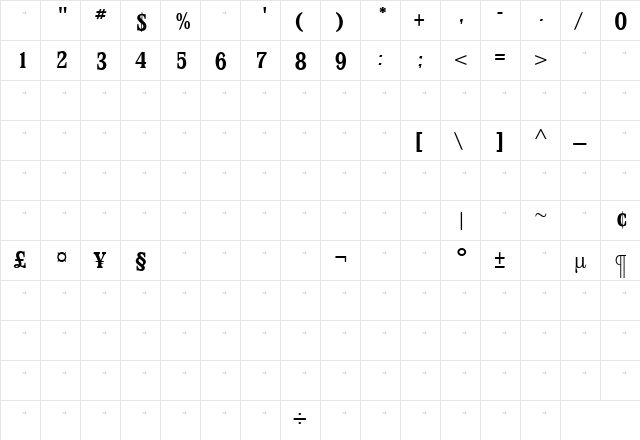
StirlingBoldTab Roman
Design Context for StirlingBoldTab Typeface
StirlingBoldTab takes a measured approach to typography — its balanced proportions and neutral character make it a reliable workhorse for both digital and print work. The heavy weight commands attention and anchors typographic hierarchies.